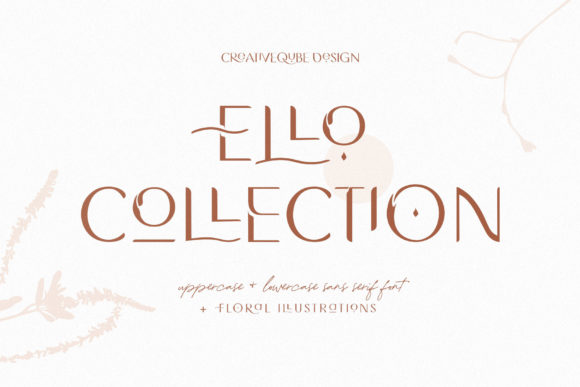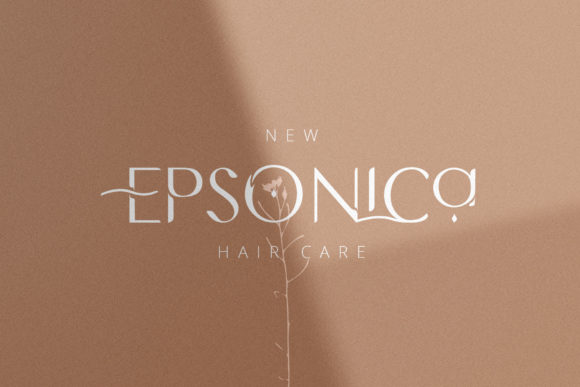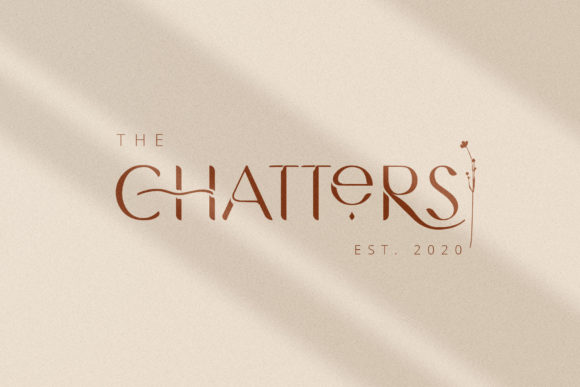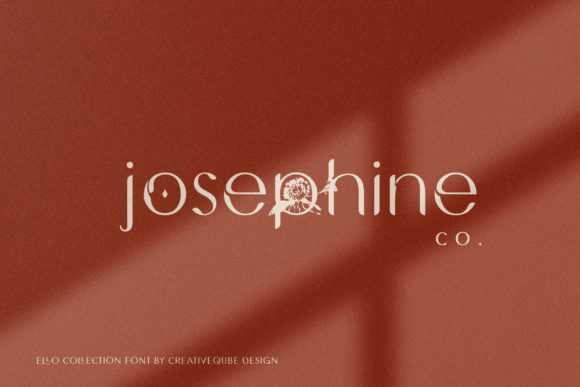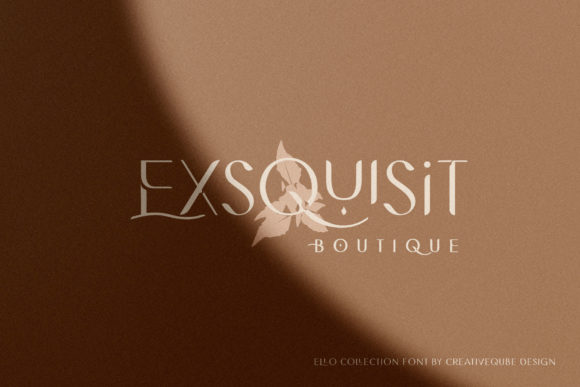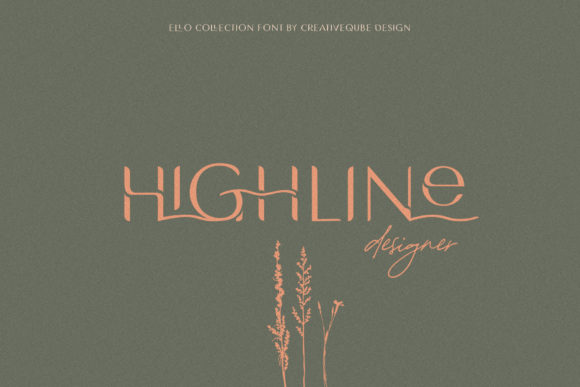
The Ello Collection Font: A Vintage Sans Serif Gem
I’ll never forget the time I was working on a wedding invitation project, and my client asked for a font that was both elegant and playful. I scoured the internet, trying out font after font, but nothing seemed quite right. That was until I stumbled upon the Ello Collection font. With its genuine vintage vibe and extensive features, it was the perfect solution to my design dilemma. In this article, I’ll share my experience with the Ello Collection font, and explore its many uses, features, and applications.
So, what do I love about the Ello Collection font? Here are a few highlights:
- ✨ Vintage charm: The Ello Collection font has a unique, retro feel that’s perfect for designs that need a touch of nostalgia.
- ✅ Extensive features: This font comes with a wide range of alternates, ligatures, and swashes, making it incredibly versatile.
- ⚡️ PUA encoded: The font is PUA encoded, which means you can access all the glyphs and swashes with ease.
Of course, no font is perfect, and there are a few small quirks to be aware of:
- 🤔 Some characters may require manual kerning: As with any font, you may need to adjust the kerning on certain characters to get the best results.
- ⚠️ Not all platforms support OpenType features: This font’s advanced features may not work on all platforms or in all applications.
The Story Behind Ello Collection
The Ello Collection font was designed with the goal of creating a versatile, vintage-inspired sans serif font that could be used for a wide range of design projects. The designer wanted to create a font that was both elegant and playful, with a unique character that would stand out in any design.
| What is the Ello Collection font? | The Ello Collection font is a vintage-inspired sans serif font with a wide range of alternates, ligatures, and swashes. |
| Is the Ello Collection font PUA encoded? | Yes, the Ello Collection font is PUA encoded, making it easy to access all the glyphs and swashes. |
| Does the Ello Collection font support OpenType features? | Yes, the Ello Collection font supports OpenType features, including ligatures, swashes, and stylistic alternates. |